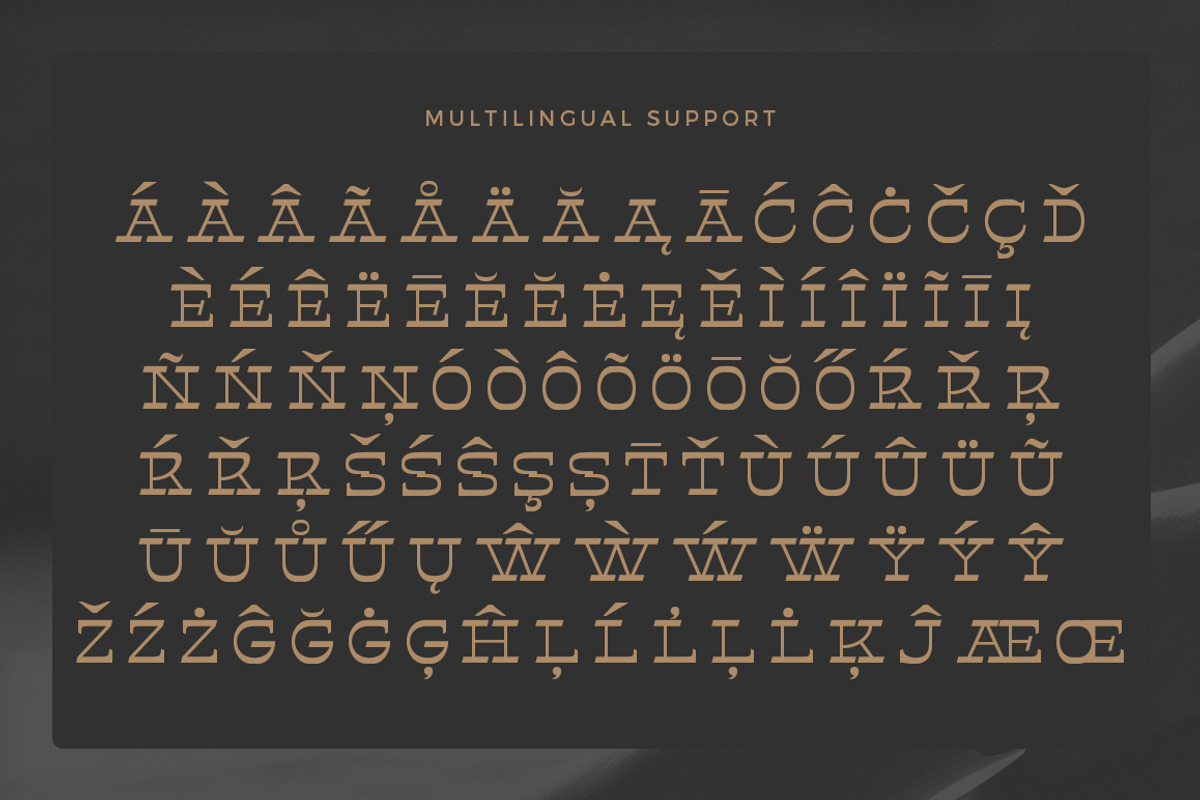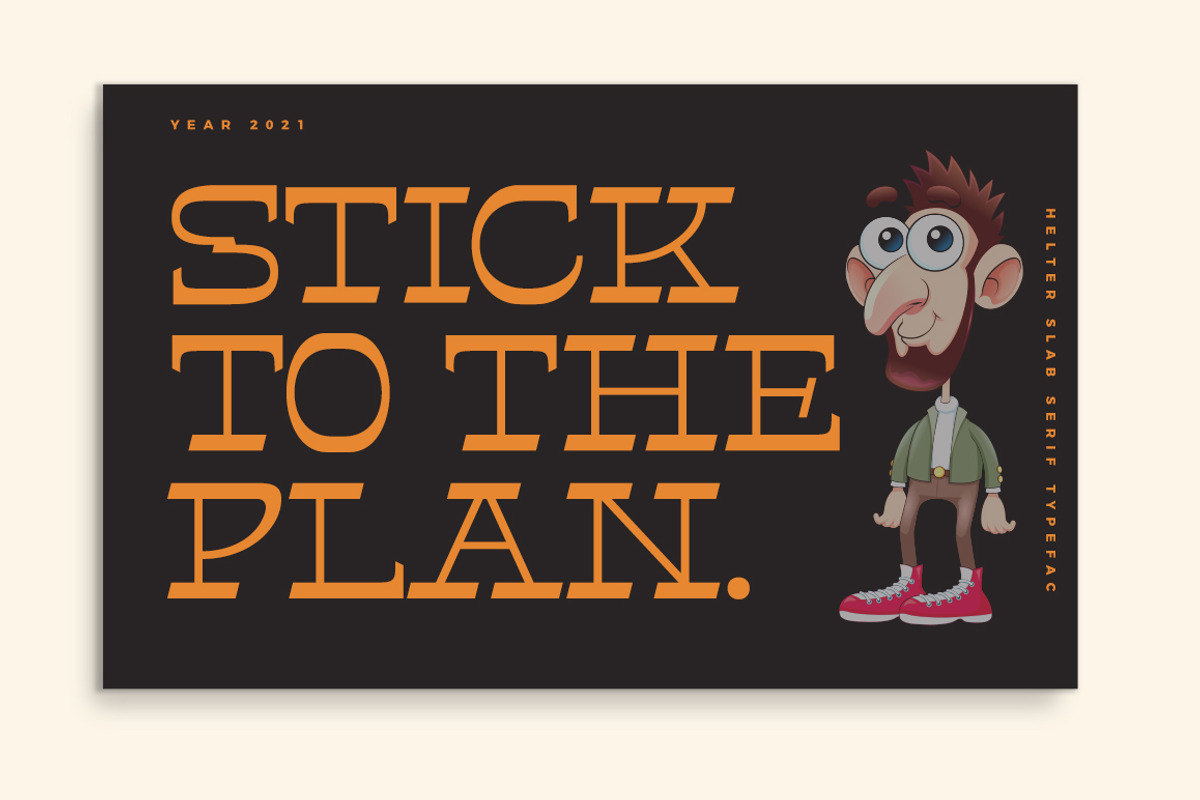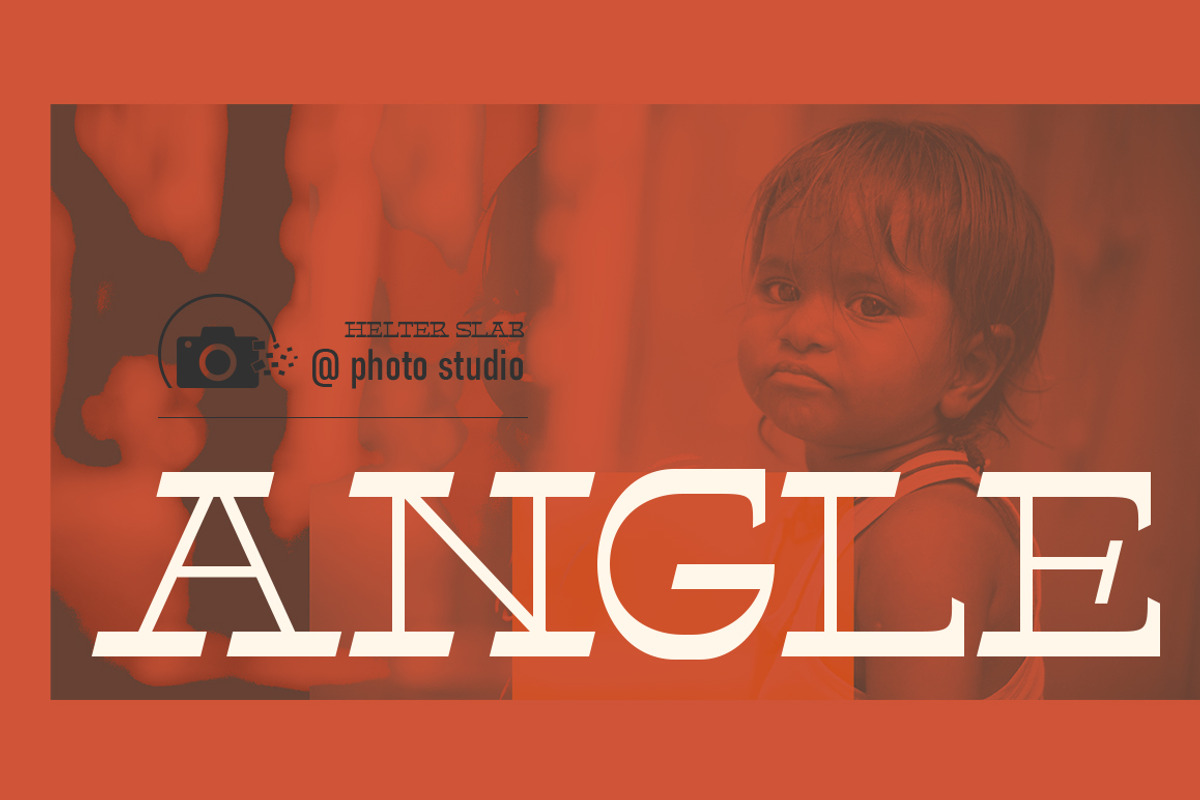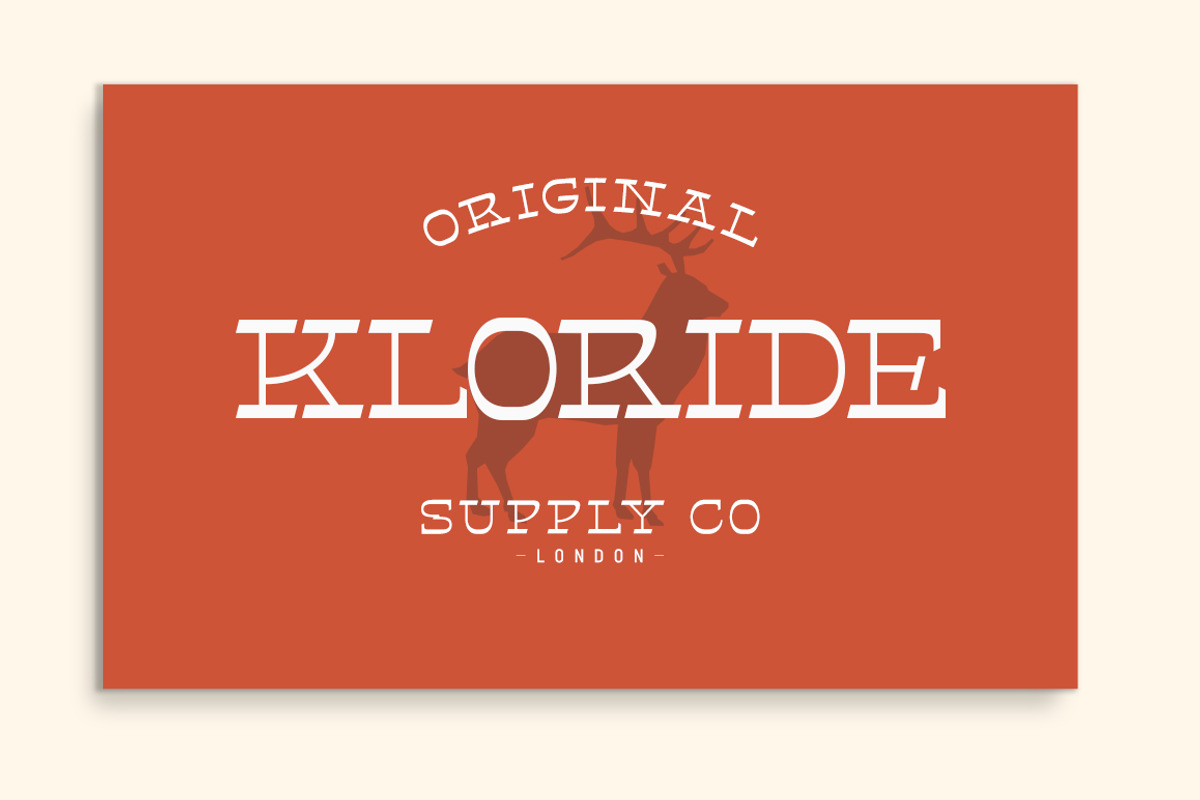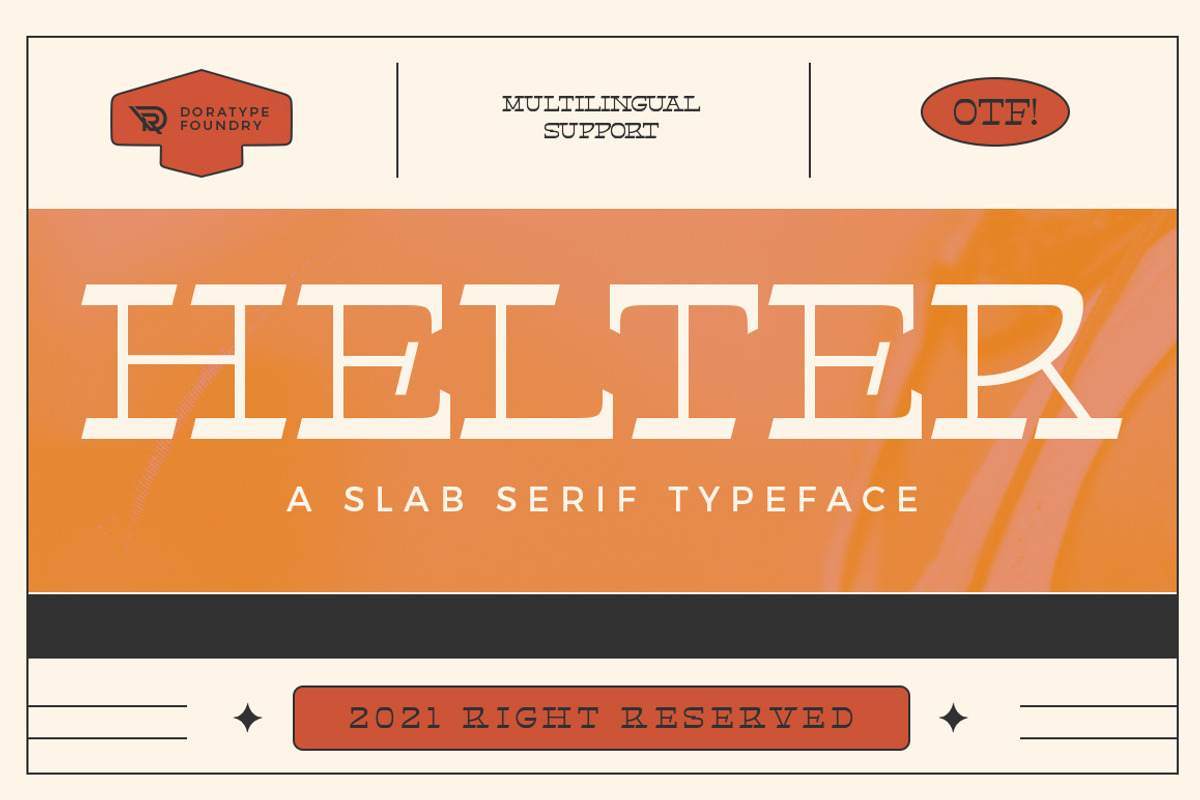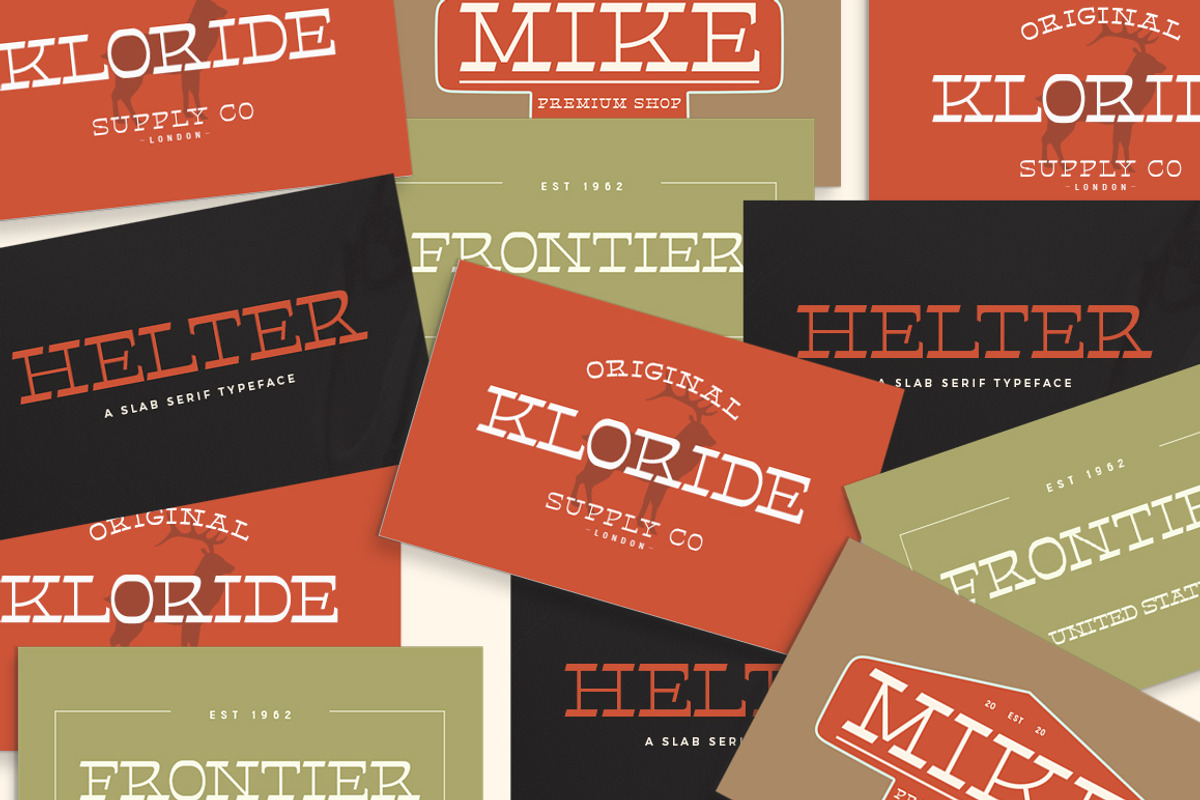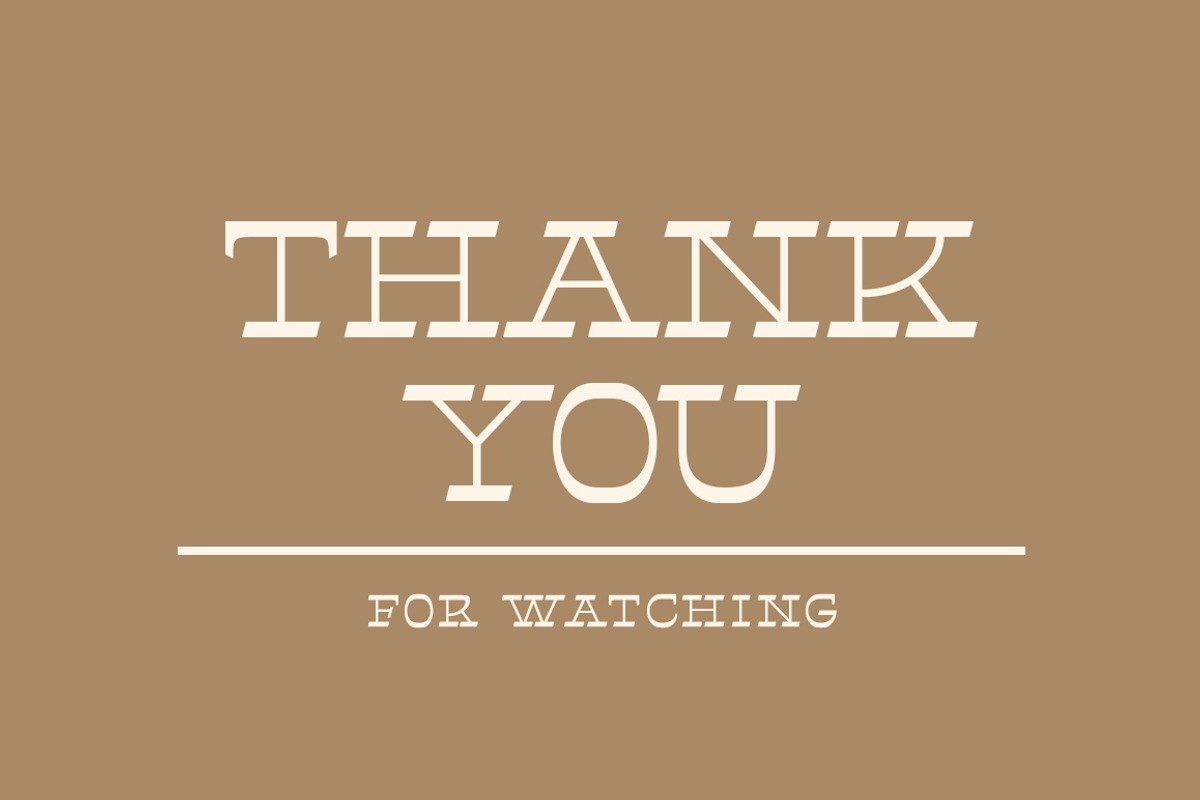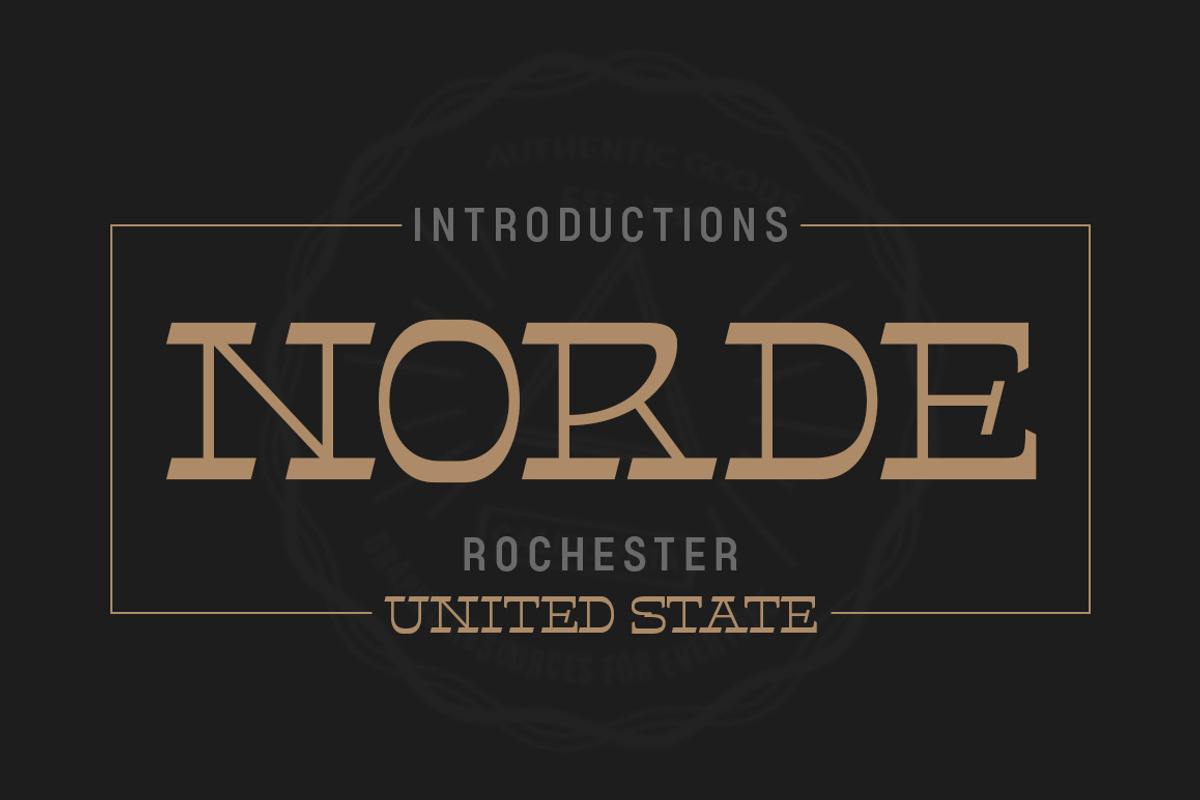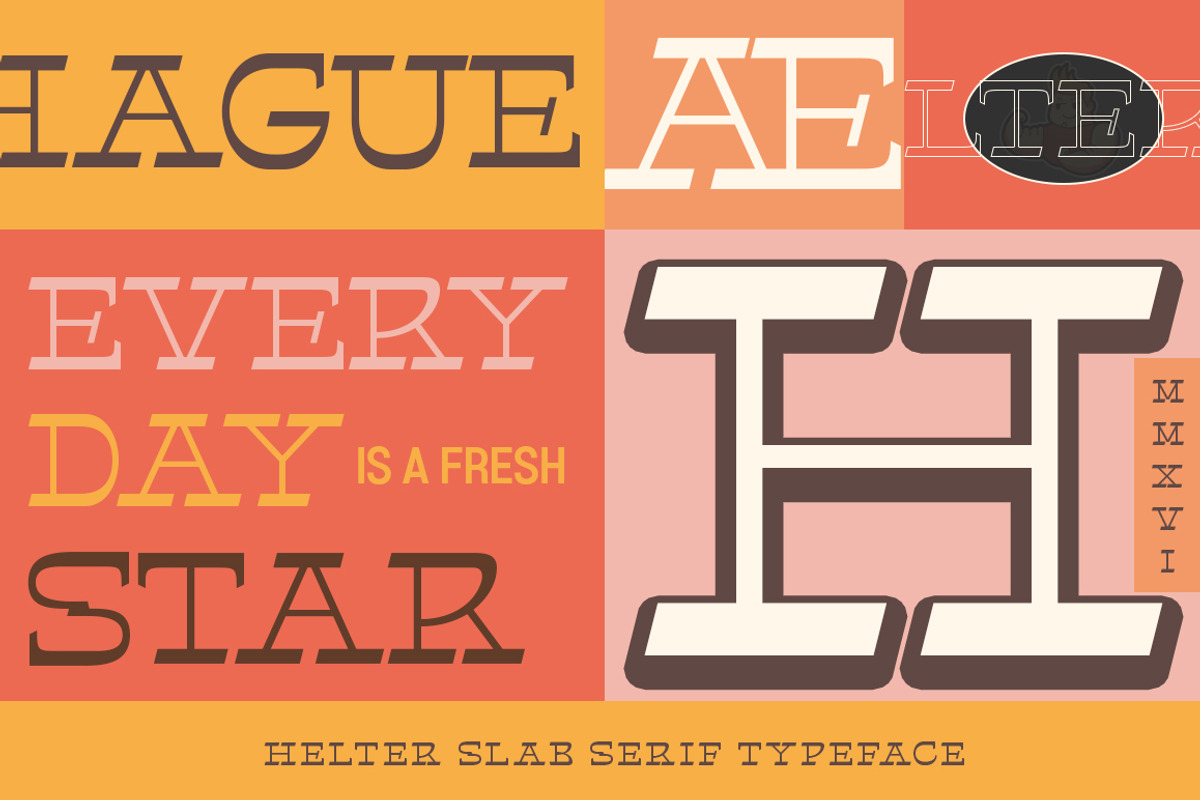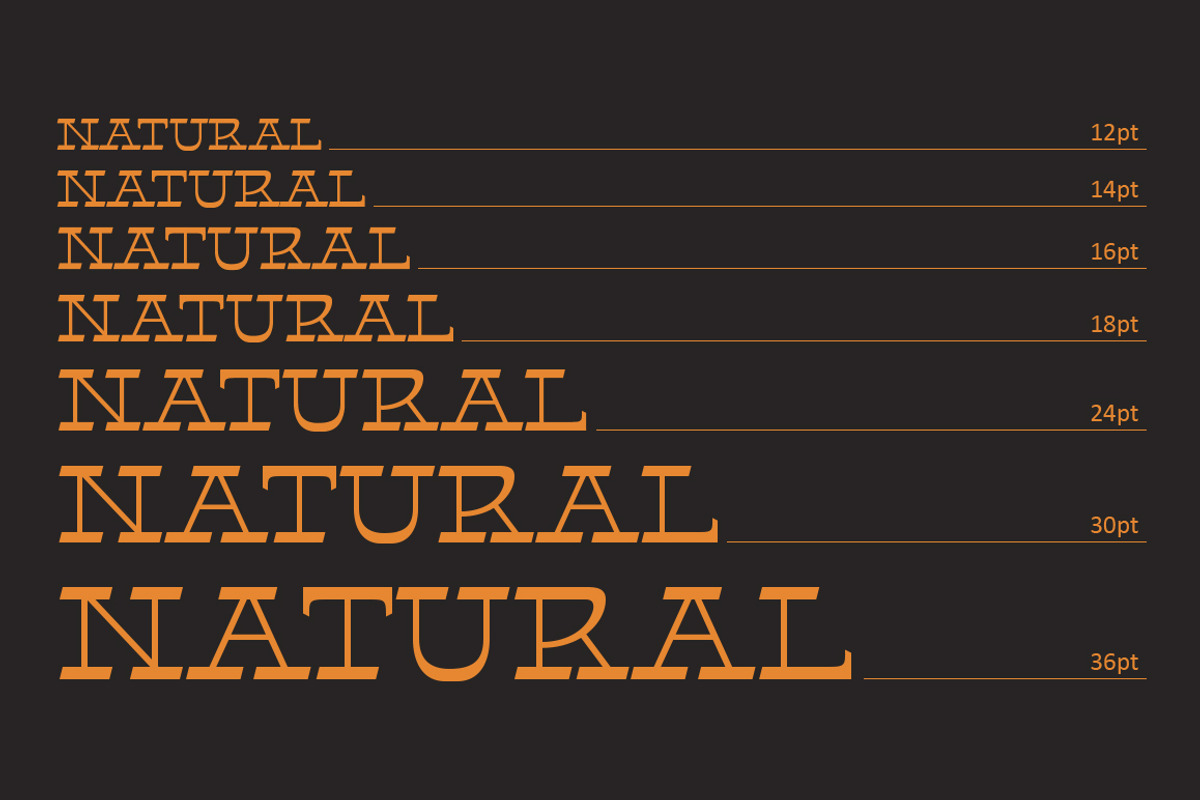
Helter Slab
NEW! Helter is a slab-serif font that gives off a clean and very elegant feel that has a strong and bold look. the slab is thick and does not regret the size of the width.
The slab-serif helter is perfect for your upcoming project which is applied especially to various other formal forms such as invitations, labels, logos, magazines, books, greeting / wedding cards, packaging, fashion, make up, stationery, novels, home decor labels, book / cover titles, special events and many more.
- Full set of uppercase letters,
- Characters with accents
- Supports Multiple Languages